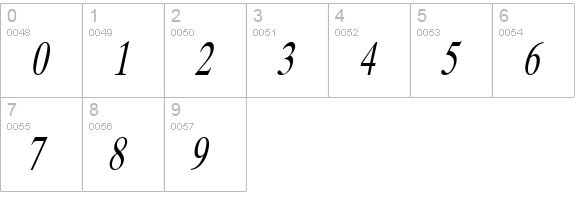
Duke Condensed Italic Font Details
Duke Condensed Italic is a distinctive, condensed-width, italic variant in the Duke typeface family \xE2\x80\x94 well suited to design and typography projects.
The Duke Condensed Italic font exudes a sense of sophistication and elegance with its sleek and stylish design. Its slanted letters add a touch of dynamism and flair to any text, making it perfect for adding a touch of modernity to your projects. Whether used for headings, titles, or body text, this font is sure to make a statement. What's even better is that Duke Condensed Italic is available for free download at FontsMarket.com. This means you can easily access and use this beautiful font in your designs without any cost. Don't miss out on the opportunity to enhance your projects with the bold and distinctive look of Duke Condensed Italic font - download it today for free at FontsMarket.com!